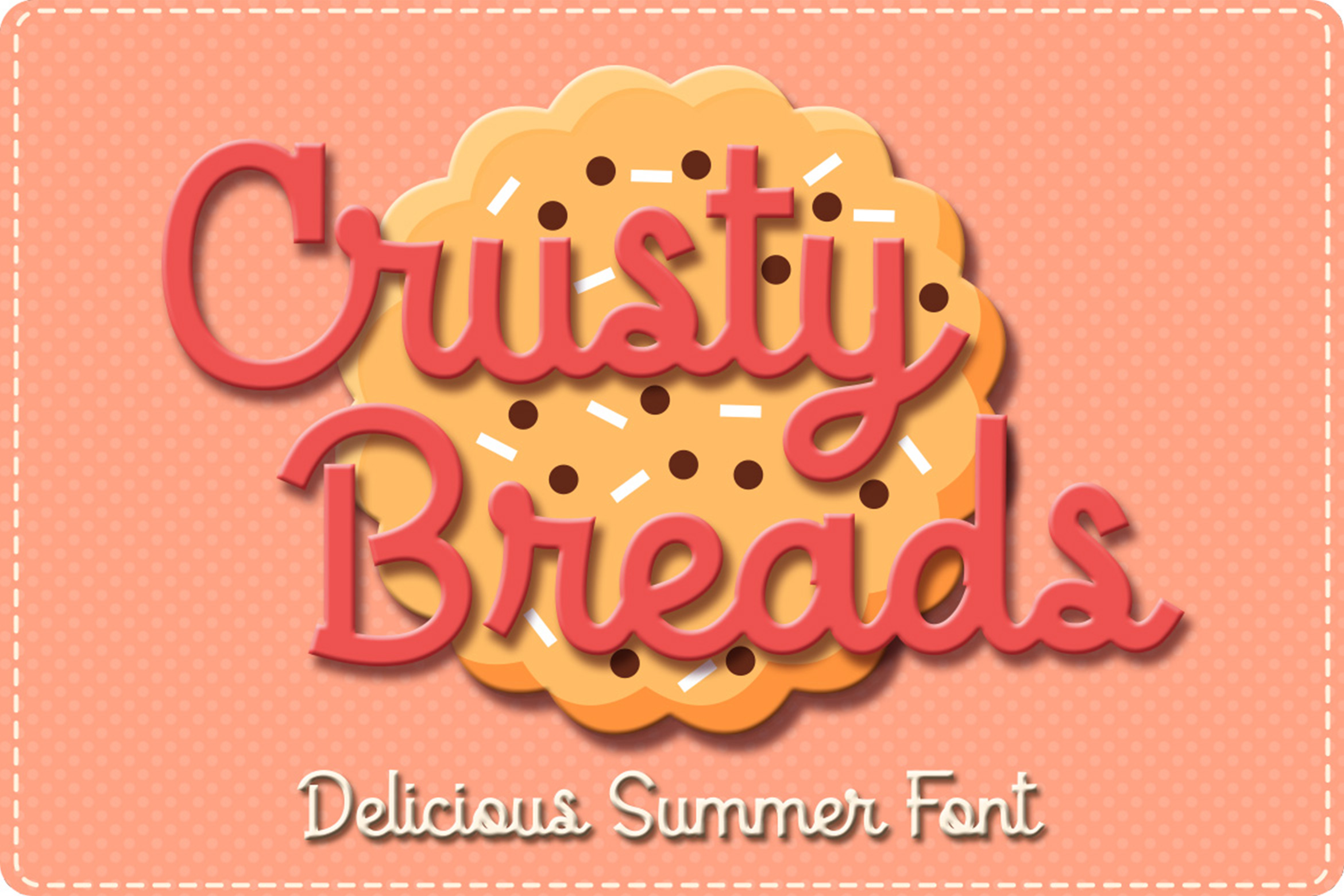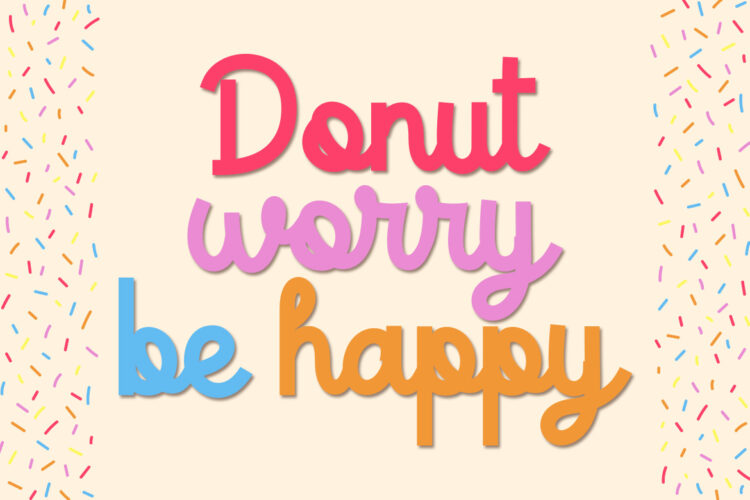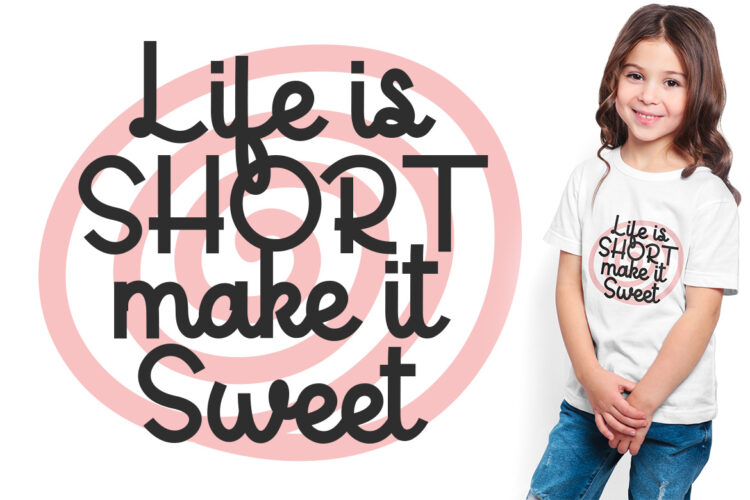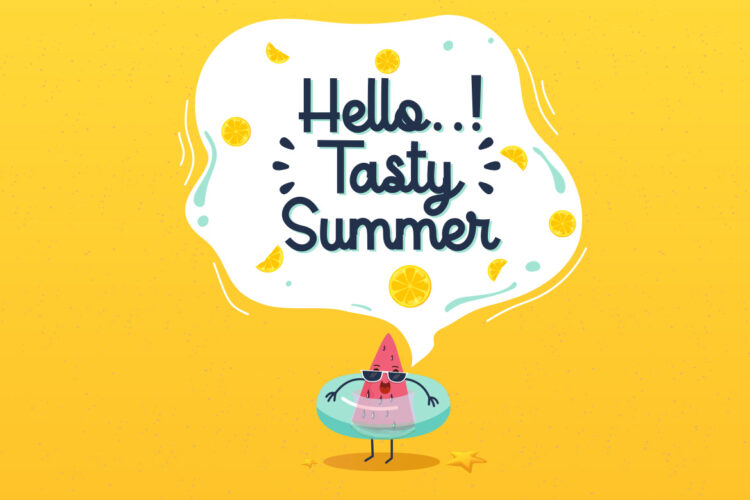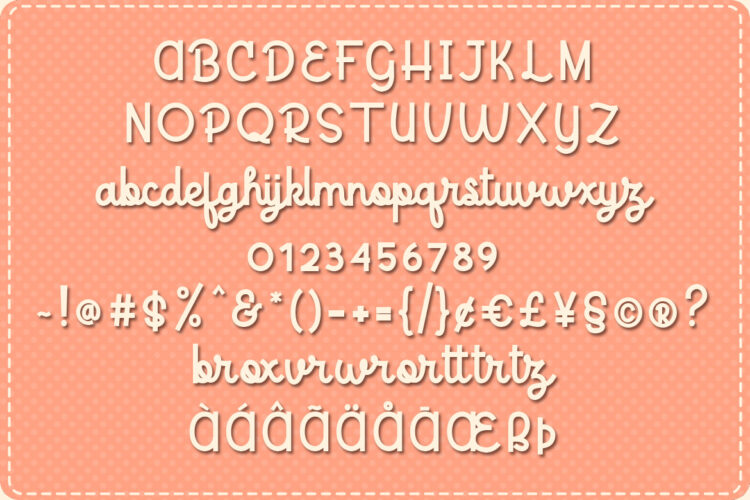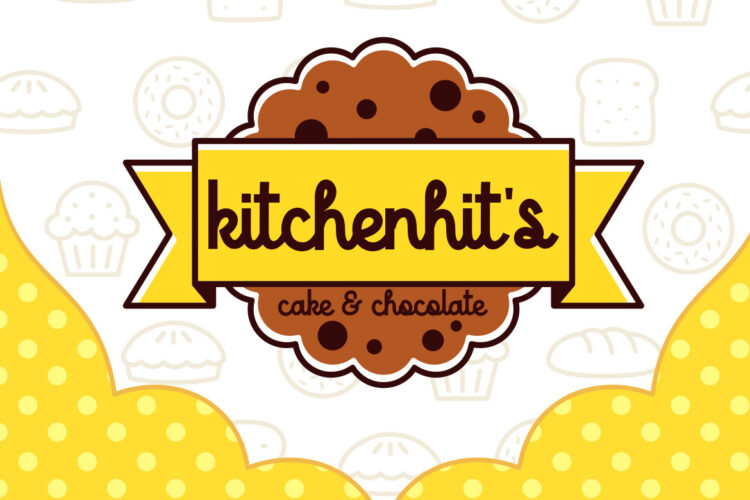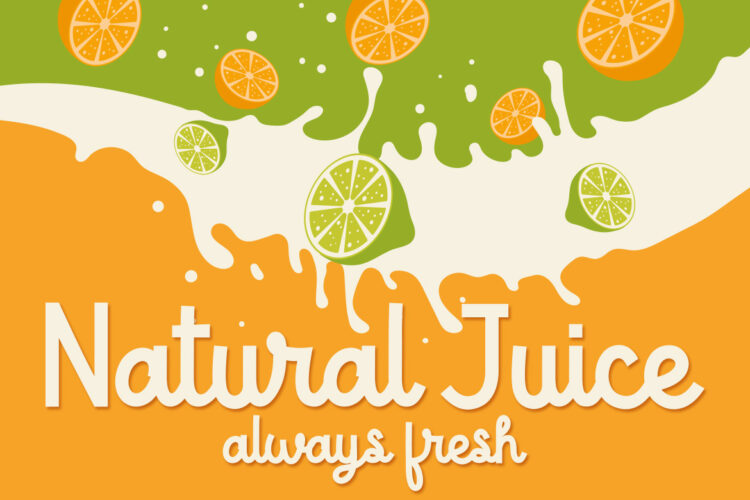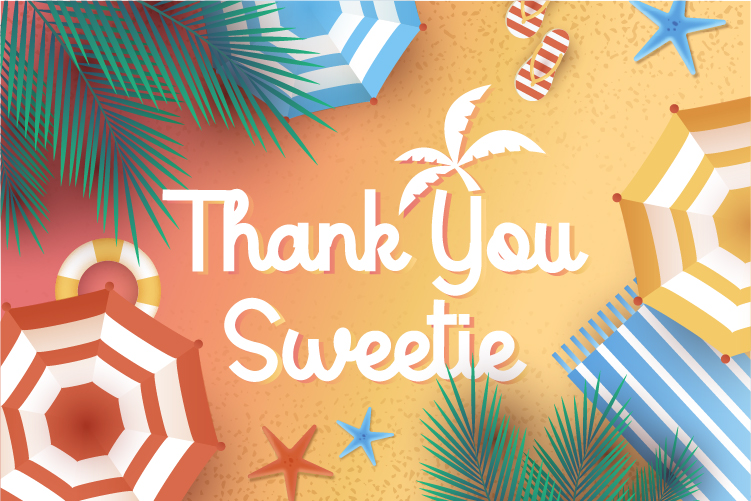
Introducing Crusty Breads, Delicious summer display font !
This font comes with strong character and clean nodes, great for quotes, advertisments, product packaging, product designs, label, Etc.
Crusty Breads – Display Font